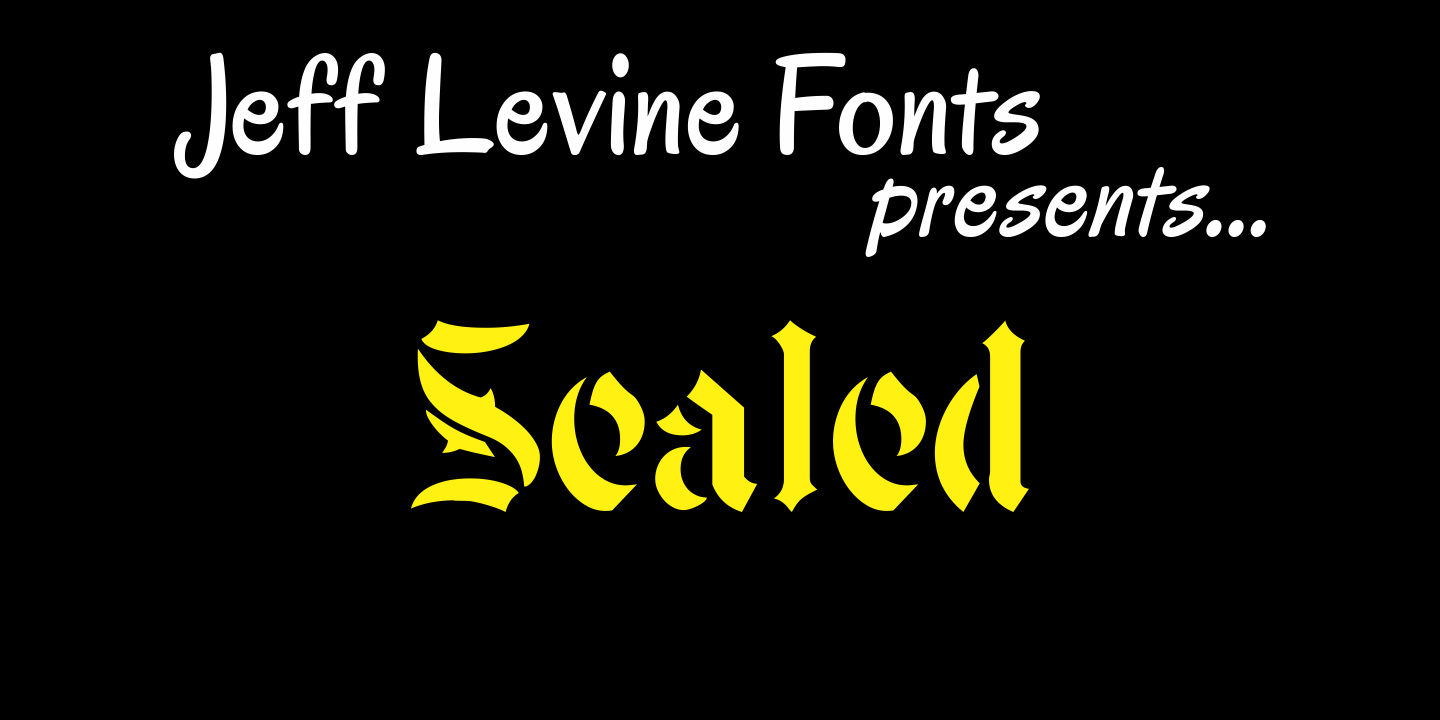
Sealed
One of six fonts inspired by old stencil lettering guides, Jeff Levine has drawn a font which captures the feel of simpler times when signs and posters were stencilled by school children, teachers, librarians and shopkeepers.